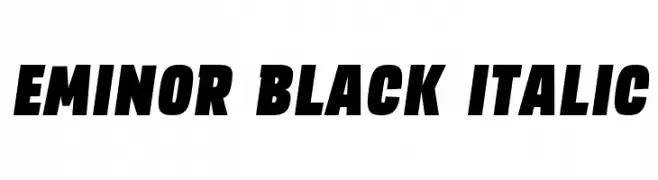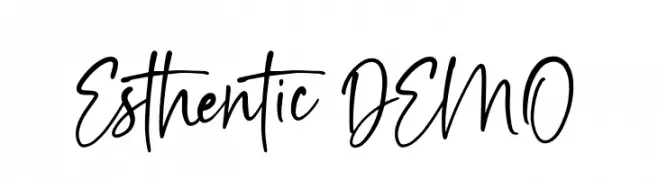
A bold, italic font with strong, dynamic characters and a modern style.
A playful and expressive handwritten font with dynamic strokes.
A bold, gothic-inspired font with sharp, angular edges and dramatic serifs.
A bold, gothic-inspired font with sharp, angular edges.
A lively handwritten font with fluid and dynamic strokes.
A bold, modern sans-serif font with clean lines and a strong presence.
A dynamic, flame-inspired italic font with sharp serifs and bold curves.
A bold, flame-inspired font with high contrast and dynamic curves.
A bold, playful font with chunky, dynamic letters and a retro vibe.
A bold, flowing script font with elegant curves and a modern calligraphic style.